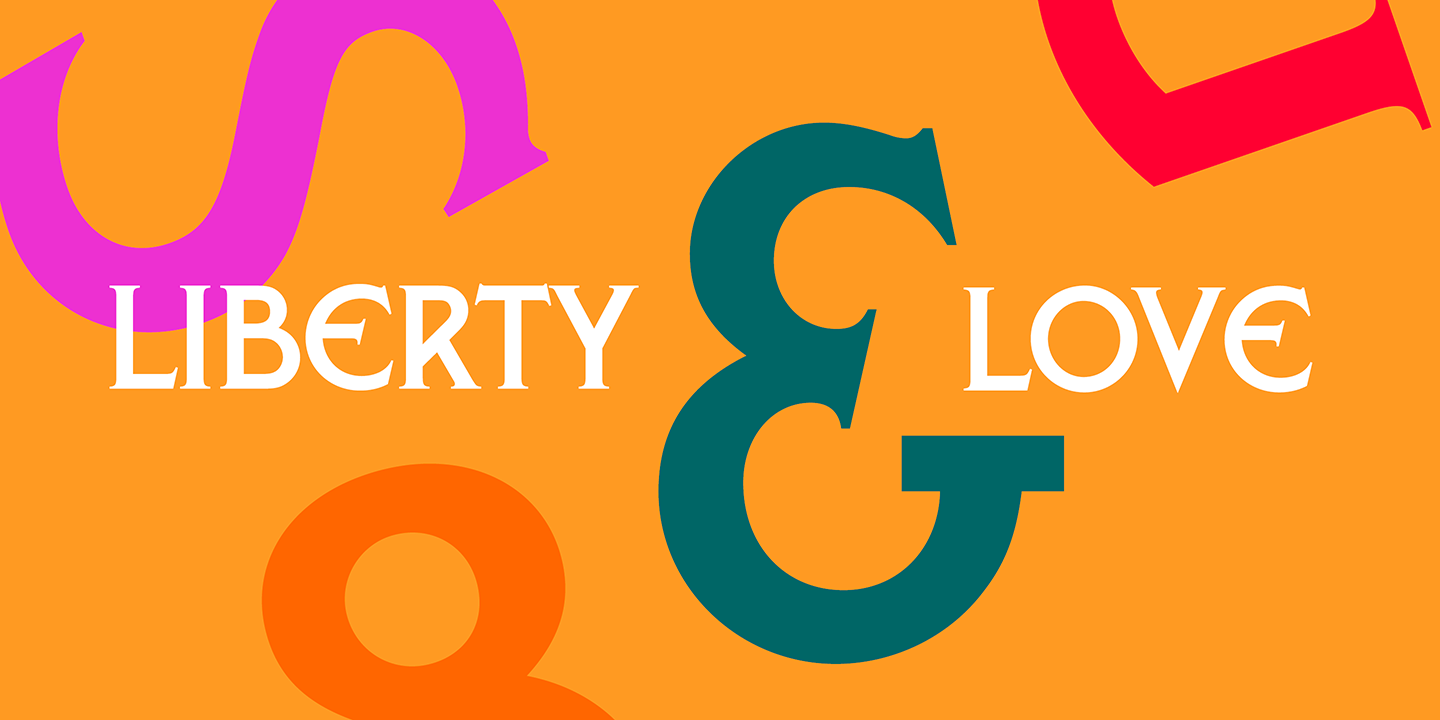
Liberty Font is perfect for various applications including patriotic campaign materials, historical museum displays, American heritage branding, independence celebration graphics, constitutional law firm logos, freedom movement posters, veterans organization signage, civic education materials, democratic institution communications, and inspirational freedom campaigns.
What makes Liberty Font so exciting is its profound ability to embody the spirit of freedom and democratic ideals through typography that captures the essence of liberty, justice, and the pursuit of happiness. This inspiring typeface features dignified letterforms with constitutional proportions and freedom-inspired details that evoke the founding principles of democratic societies and the enduring quest for human rights. The font's patriotic character and liberty-focused aesthetic make it ideal for brands that want to convey freedom, justice, and democratic values to audiences who cherish constitutional rights, civic engagement, and the principles of liberty.
Liberty Font family includes multiple weights and styles: Light, Regular, Medium, Bold, Black, Constitutional, Condensed, Extended, and democratically crafted Italic variants. Each family member maintains the font's signature freedom spirit while offering different levels of visual impact and stylistic flexibility for diverse patriotic and civic applications.
The Liberty Font Free Download provides designers with access to a freedom-inspired typeface that excels in civic and patriotic markets. Whether you're creating constitutional organization identities, designing democratic campaign materials, or developing freedom-focused educational experiences, this font delivers the inspiring aesthetic needed to connect with liberty-loving audiences and civic-minded communities. Its patriotic styling and democratic essence make it particularly effective for government institutions, civic organizations, and freedom advocacy groups.
Typography patriots will appreciate the constitutional foundation and democratic craftsmanship in Liberty Font's design. The font features proudly structured letterforms with patriotic proportions, optimized spacing for civic applications, and carefully crafted details that ensure excellent readability while maintaining its freedom character. From constitutional documents to civic education materials, this typeface maintains its dignity and patriotic appeal across all democratic contexts.
For civic web designers, Liberty Font provides outstanding performance in democratic digital environments and patriotic platforms. The font's technical specifications are optimized for civic presentations while preserving the dignified, constitutional edges that define its freedom character. Its versatility makes it suitable for both static patriotic content and interactive civic experiences.
Creative professionals working in government communications, civic education, patriotic organizations, and democratic institutions will find Liberty Font to be an essential tool for projects requiring inspiring visual communication. The font's ability to convey freedom, justice, and democratic principles makes it invaluable for brands targeting civic-minded demographics and patriotically-conscious audiences.
Design agencies specializing in civic and patriotic brands appreciate Liberty Font's versatility in creating memorable freedom identities.